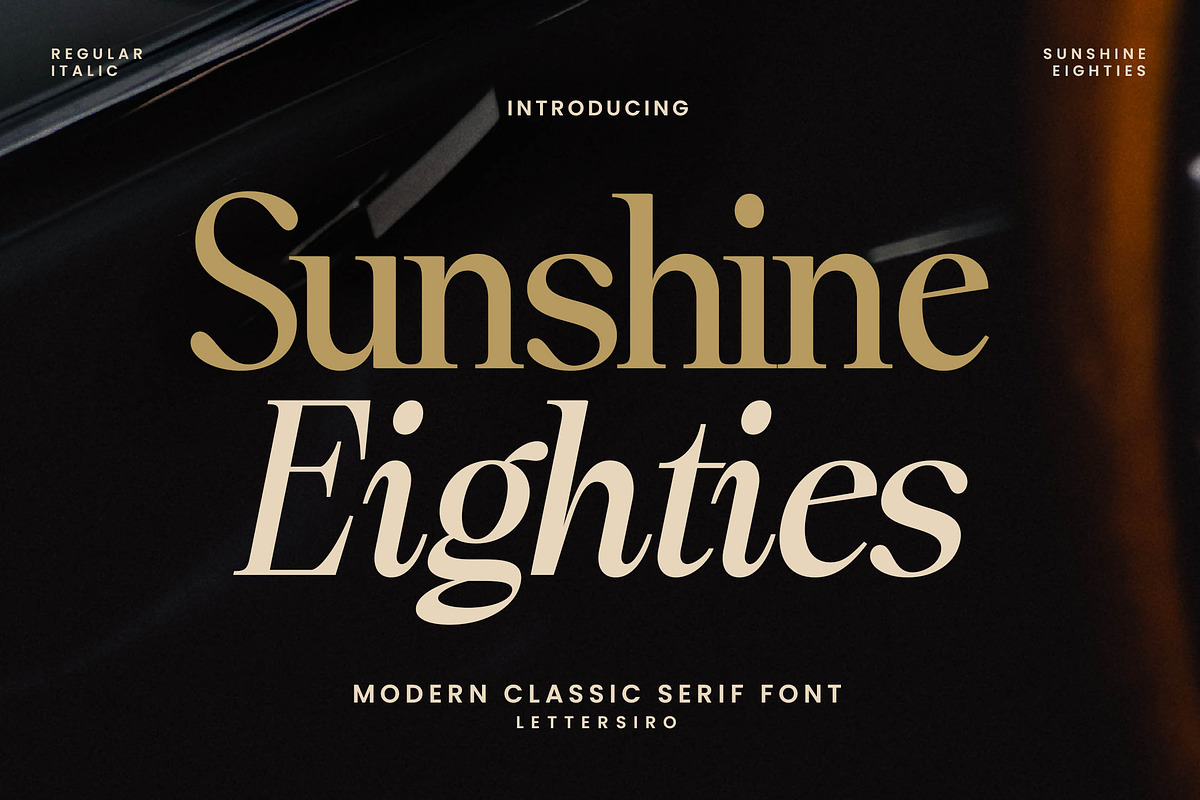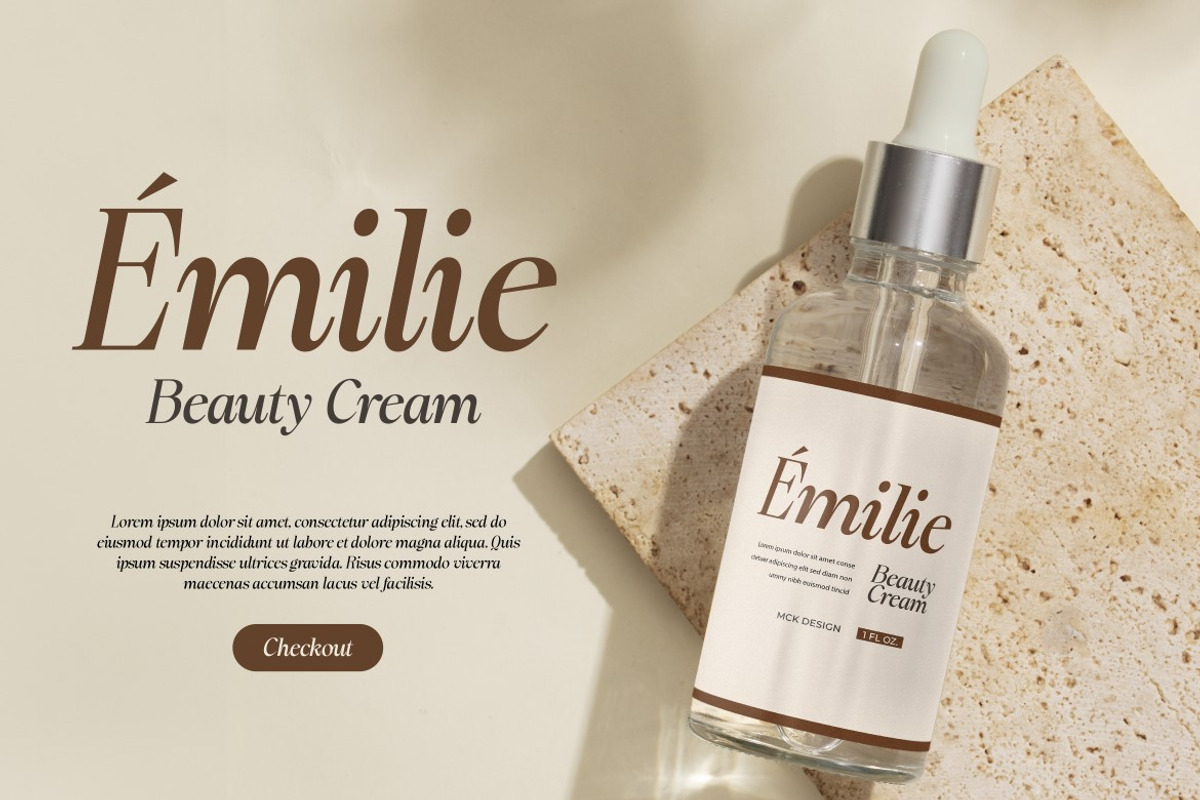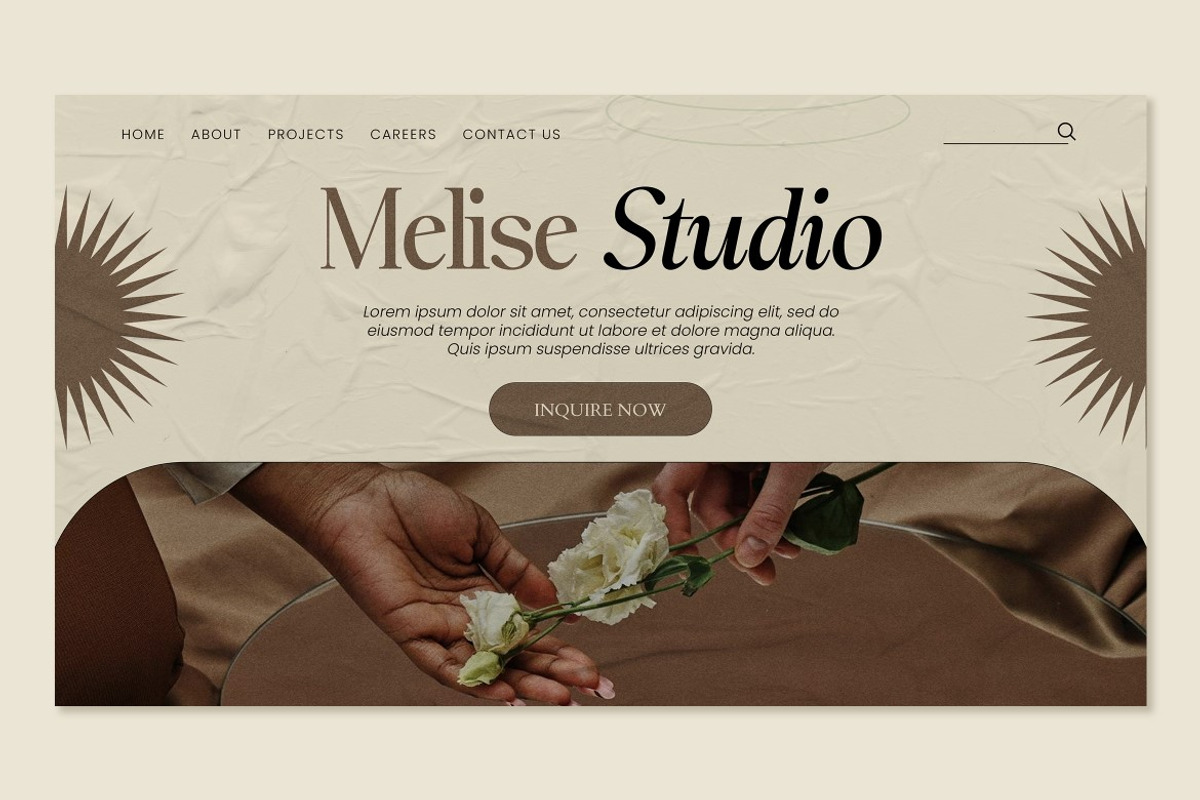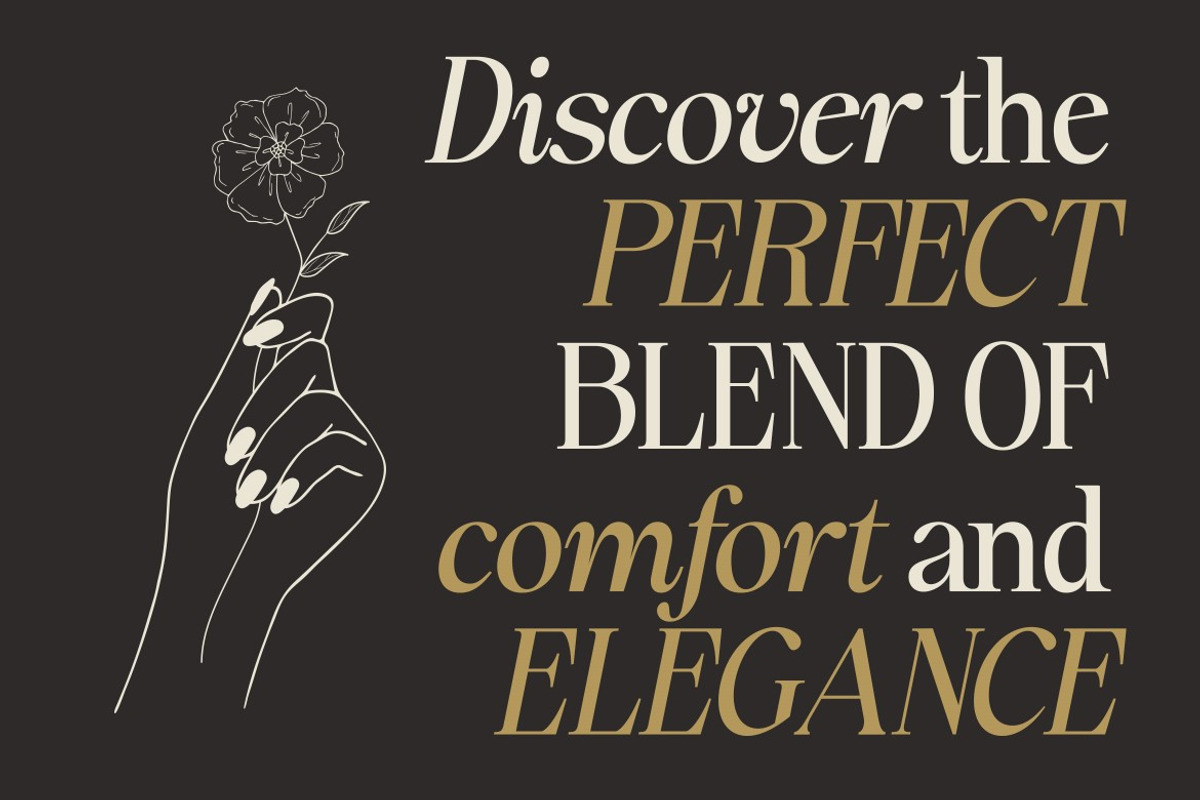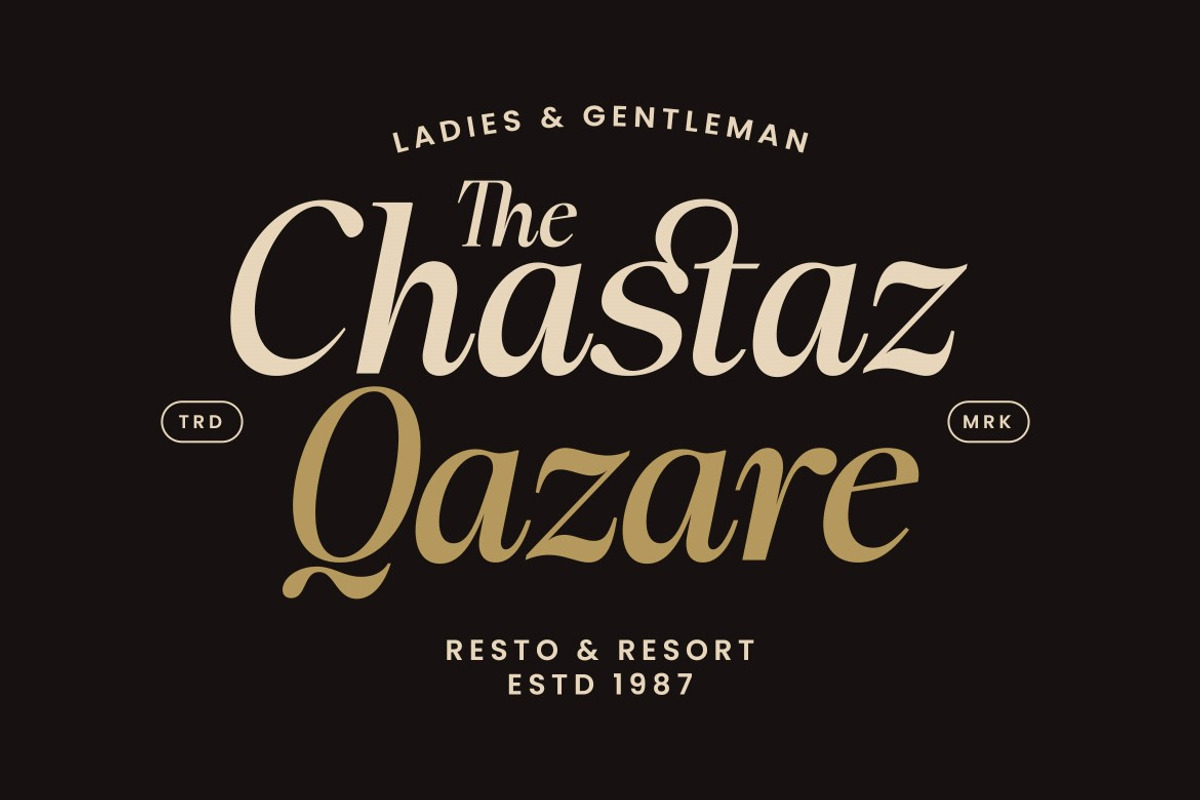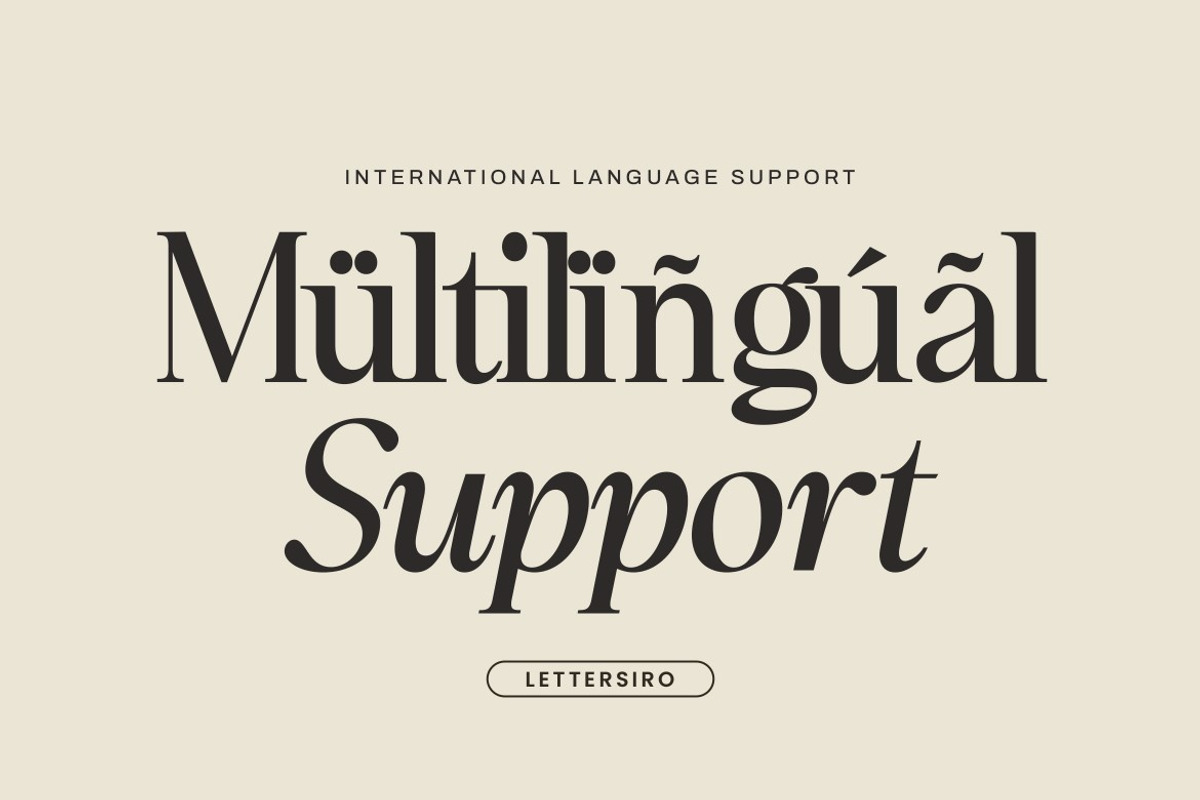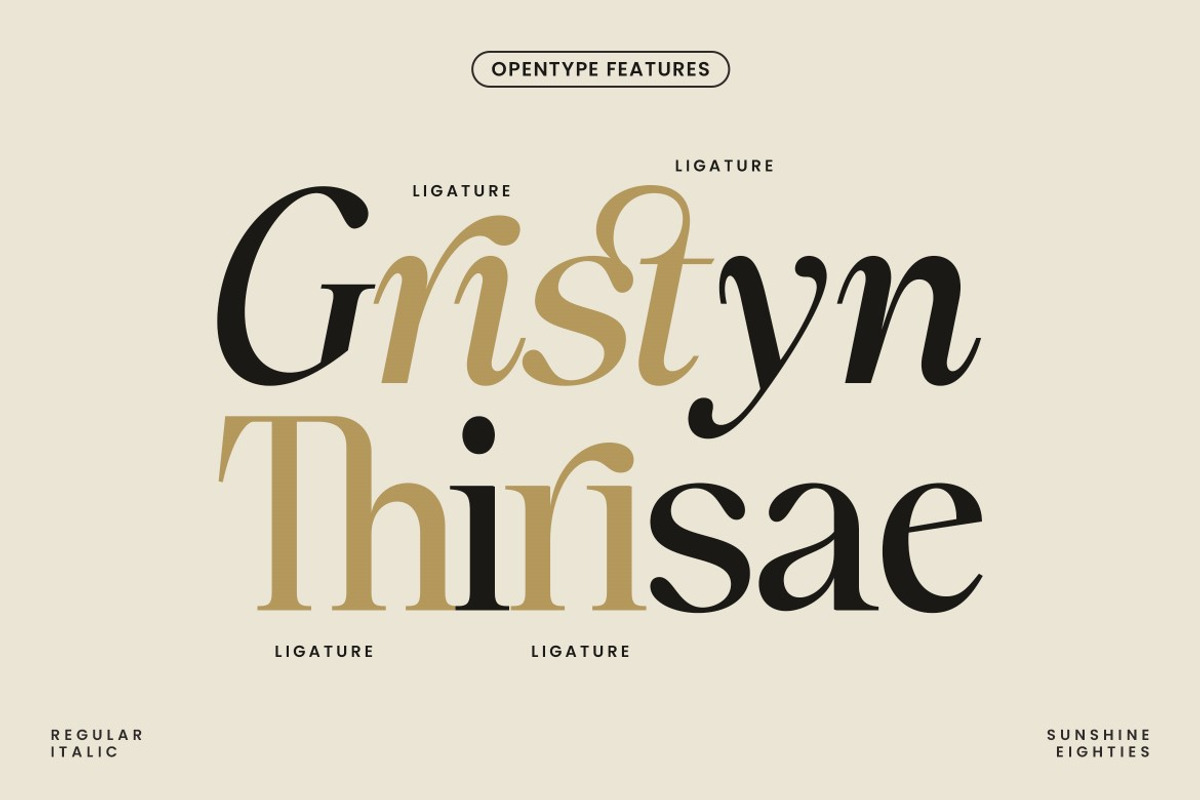
Sunshine Eighties - Modern Classic S
Sunshine Eighties is a modern classic serif font that brings timeless elegance with a fresh, contemporary edge. Its smooth curves and high contrast strokes create a striking balance between sophistication and boldness—perfect for designs that demand presence and style.
This typeface includes both Regular and Italic styles, offering flexibility for a wide range of design projects. Whether you're building a brand identity, crafting editorial layouts, or designing packaging, Sunshine Eighties delivers clarity, charm, and strong typographic character. Its letterforms are sharp, stylish, and designed to stand out across digital and print media.
Modern Classic Style – Strong contrast with retro-inspired details
Two Styles – Regular and Italic included
Full Character Set – Uppercase, lowercase, punctuation, numbers, and symbols
OpenType Features – Ligatures and stylistic alternates
Multilingual Support – Western European language support
Logo Design – Great for sharp, stylish branding marks
Editorial Projects – Ideal for magazine covers, titles, and content layouts
Product Packaging – Add modern charm to your visual presentation
Typography Art– Make headlines and quotes visually impactful
Branding Systems – Build a classic identity with modern appeal
Sunshine Eighties delivers a distinctive serif look that bridges classic structure with modern design—ideal for stylish, clear, and versatile projects.